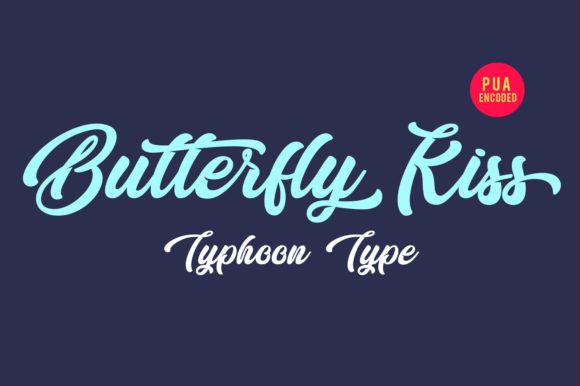
Butterfly Kiss Font
About Butterfly Kiss Font
The Butterfly Kiss is an striking, yet elegant script font which can be used for logos, name tags, advertising, clothing, greeting cards, and much more!